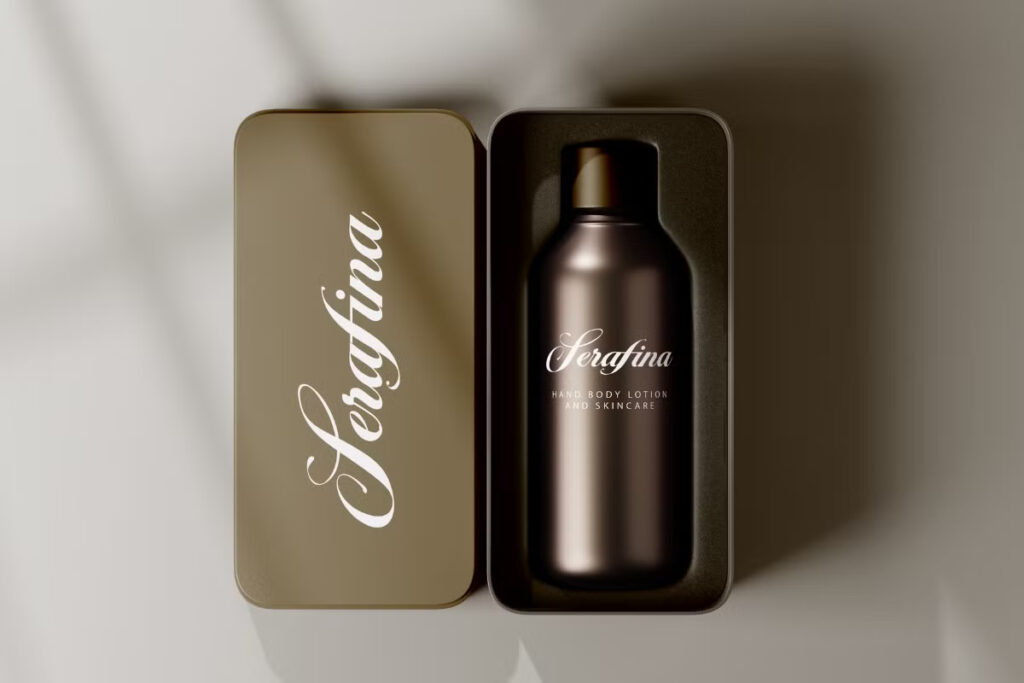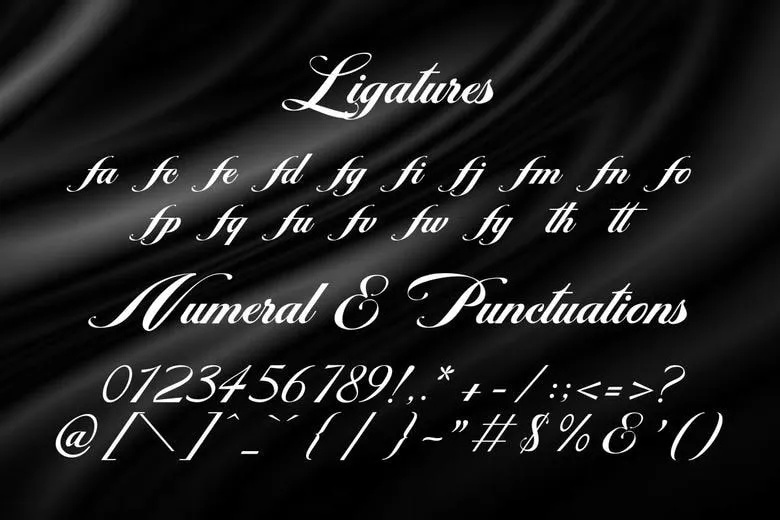
Pearlington Fragrances is a luxurious calligraphy font that exudes elegance across every stroke. Perfect for adding a touch of creativity to your writing projects, this font is available in two distinct variants: Regular and Bold.
Designed with multilingual support, Pearlington Fragrances seamlessly connects with a global audience, making it an excellent choice for international branding and design projects.
Its refined letterforms enhance the visual appeal of any text, offering a handwritten yet exclusive charm. Whether you’re creating branding stationery, wedding invitations, logos, or high-end packaging, Pearlington Fragrances adds sophistication and grace to your designs.
Pearlington Fragrances Calligraphy Script Font